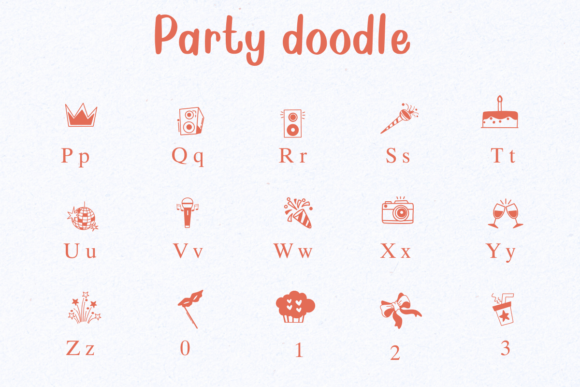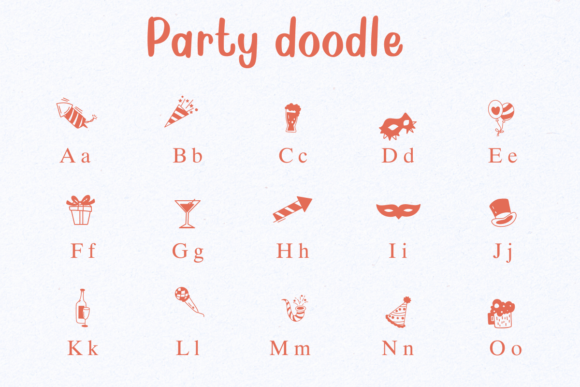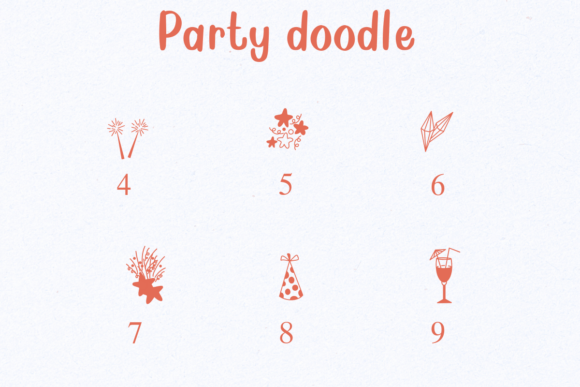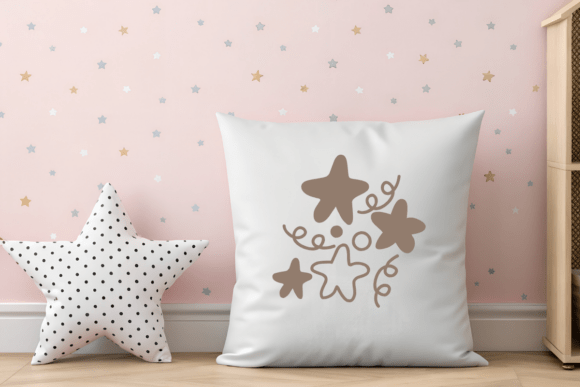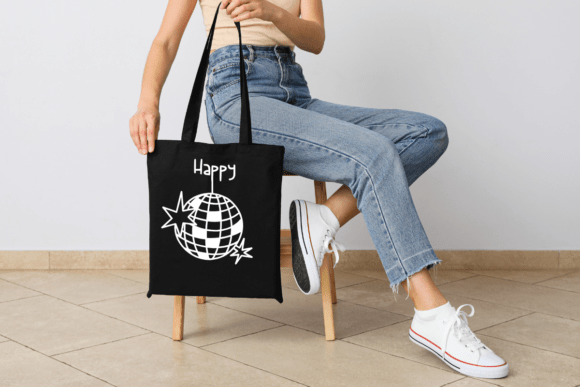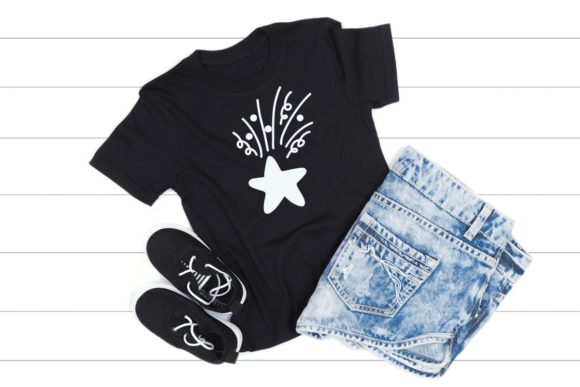
Introduction to Party Doodle Font
Have you ever found yourself in the midst of a creative rush, pouring all your energy into a project, only to be stumped by the perfect finishing touch? This is where the magic of a well-chosen font comes in – and for designers, it can be the difference between a decent project and a truly unforgettable one.
Enter the Party Doodle Font, a delightful dingbats font that adds a touch of whimsy to any design. Whether you’re working on a birthday invitation, a wedding program, or simply a fun social media graphic, this lovely font is sure to bring a smile to your face and a sparkle to your design. And the best part? It’s available for a free download, making it an accessible design resource for creatives of all levels.
With its transparent background and high-quality design, the Party Doodle Font is a valuable addition to any designer’s toolkit. So why settle for a lackluster font when you can add a dash of personality to your project with this charming dingbats font?
Key Features of Party Doodle Font
- Unique, hand-drawn design perfect for creative projects, parties, and celebrations.
- High-quality design resource with a transparent background, allowing for seamless integration into various design elements.
- Perfect for crafting invitations, party decorations, and other design elements that require a playful and whimsical touch.
- Designed to be versatile, making it suitable for a variety of design projects, from social media graphics to print materials.
Honest Review: Party Doodle Font
As a designer, I’m always on the lookout for unique and high-quality design resources to elevate my creative projects. The Party Doodle Font is one such find that caught my attention. Here’s my honest review.
What works well: ✨ The Party Doodle Font is a free download that comes in a variety of styles, making it perfect for creative projects that require a playful touch. The font is well-designed and has a transparent background, allowing for easy integration into any design. It’s also a high-quality font that’s suitable for both digital and print projects.
- Perfect for party invitations, social media graphics, and other creative projects
- Comes in multiple styles and variations
Limitations: ⚠️ While the Party Doodle Font is generally well-designed, it may not be suitable for projects that require a more formal or professional tone. Additionally, the font may not be as versatile as some other design resources.
Overall, I’m impressed with the Party Doodle Font’s uniqueness and quality. It’s a great addition to any designer’s toolkit, especially for creative projects that require a playful touch.
The Party Doodle Font is perfect for creative projects such as invitations, party decorations, and social media graphics. It’s also great for designing printable art, stickers, and other craft supplies.
To get the most out of the Party Doodle Font, use it in conjunction with other design resources such as clip-art, stickers, and templates. You can also experiment with different font sizes, colors, and styles to create unique and eye-catching designs.